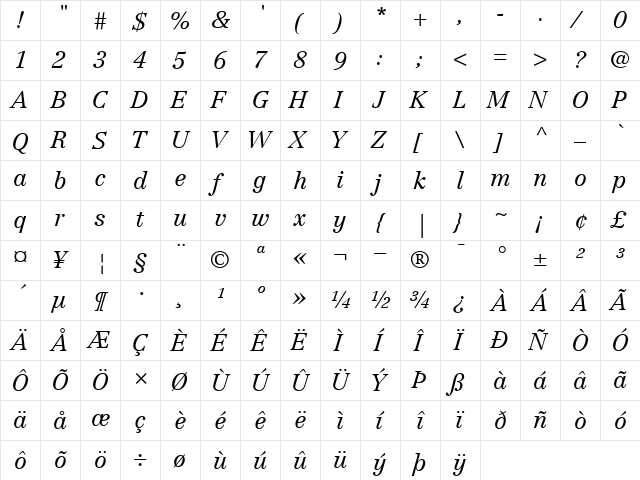
LinotypeCentennial46-Light LightItalic Font Preview
Design Context for LinotypeCentennial46-Light Typeface
LinotypeCentennial46-Light takes a measured approach to typography — its balanced proportions and neutral character make it a reliable workhorse for both digital and print work. The dynamic lean of this cut emphasises speed and emphasis in any layout. Its slender proportions lend an understated elegance to any composition.
Pro Tip: Try LinotypeCentennial46-Light for annotation and caption copy alongside an upright companion — the contrast in angle creates a dynamic but ordered typographic system.